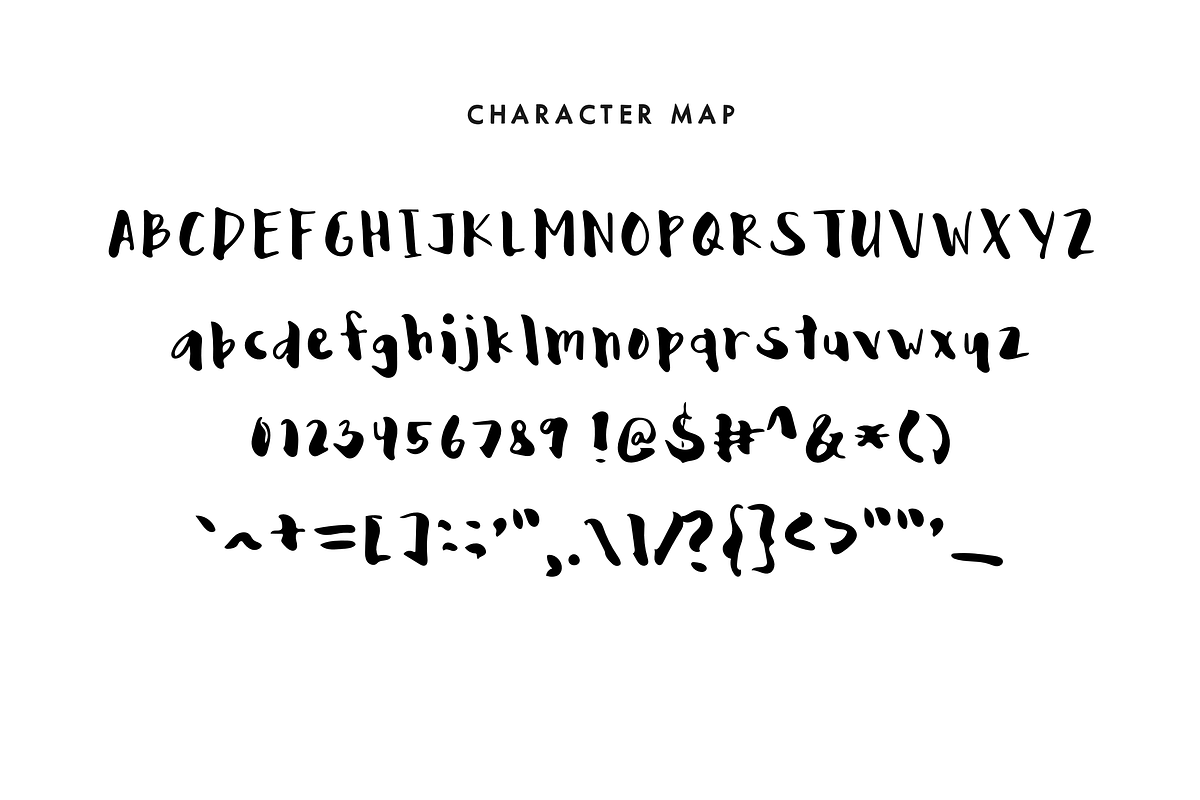
Abuzz — Tipsy Brush Lettering
Abuzz — Tipsy Brush Lettering by Mix Fonts is a font selected for branding, posters, packaging, typography.
Why Abuzz — Tipsy Brush Lettering is worth a look
Abuzz — Tipsy Brush Lettering by Mix Fonts fits naturally into Branding, posters, packaging, typography.